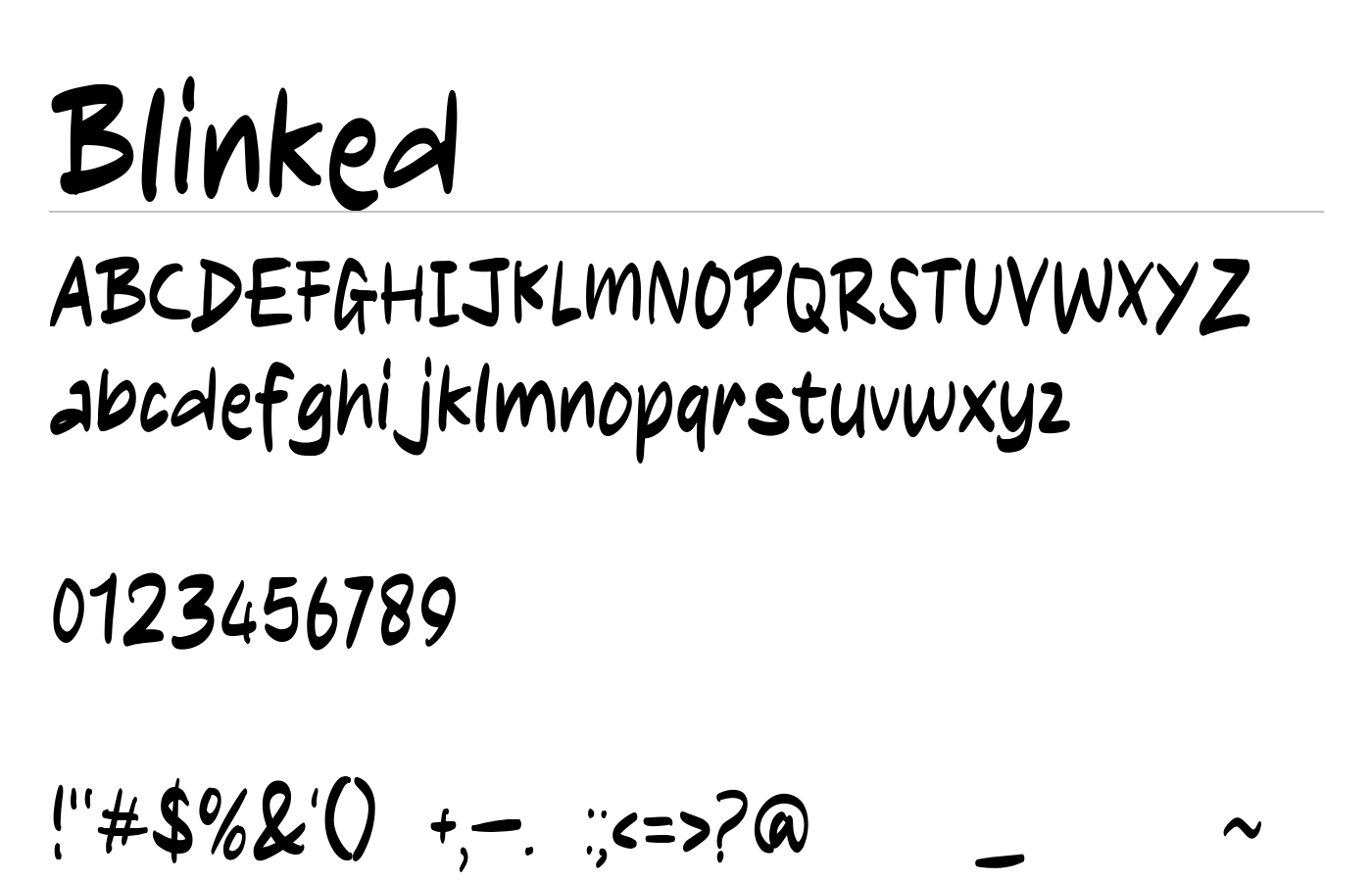
Blinked is a casual, handwritten sans serif font with a playful and friendly personality. Its irregular strokes and rounded forms create an approachable, informal look that works well for creative projects, kids’ content, or branding that wants to feel personal and fun. This font is ideal for headlines, logos, and packaging where a relaxed, hand-drawn touch is desired.
Blinked Font
About Blinked Font